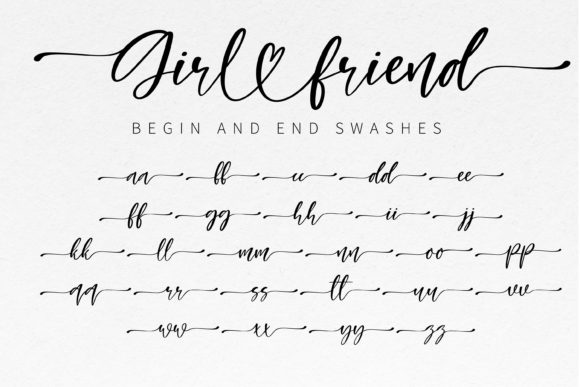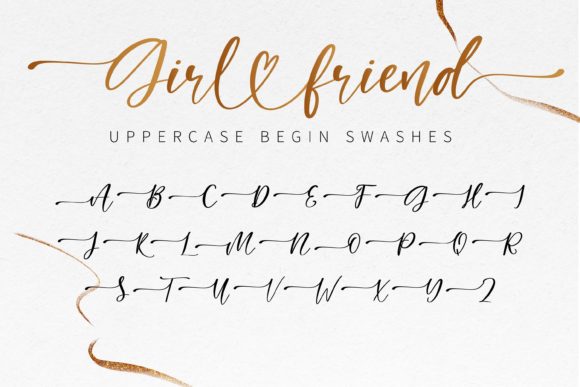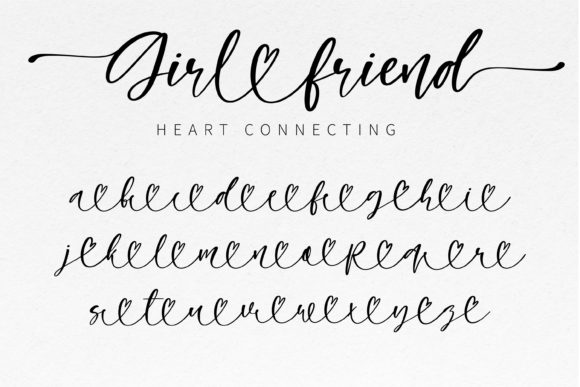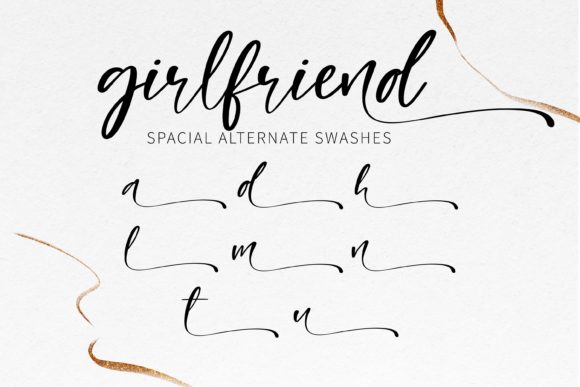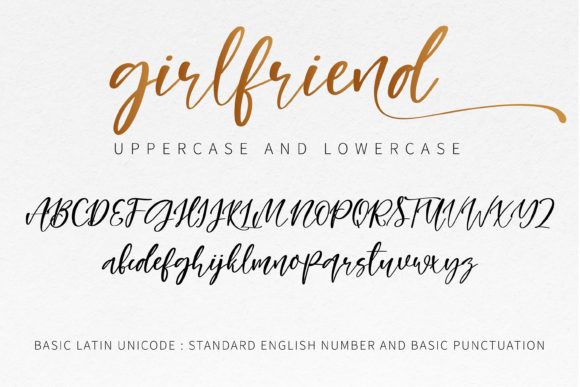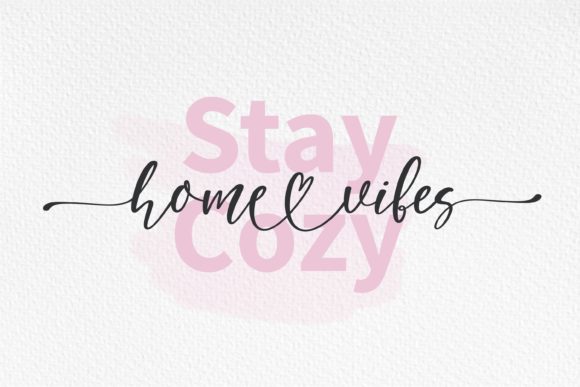
Introducing Girl Friend Font: A Delicate and Elegant Handwritten Font
Are you a designer or crafter looking for a font that exudes elegance and sophistication? Look no further than the Girl Friend Font, a beautiful handwritten font that is sure to elevate your designs to the next level. In this article, we’ll take a closer look at the features and benefits of this stunning font, and explore how it can be used to create stunning visual content.
A Delicate and Elegant Font
Girl Friend Font is a delicate, elegant, and flowing handwritten font that is perfect for designs that require a touch of sophistication. The font features beautiful and well-balanced characters that are carefully crafted to create a sense of harmony and balance. Whether you’re designing a logo, a wedding invitation, or a social media graphic, this font is sure to impress.
One of the standout features of Girl Friend Font is that it is PUA (Private Use Area) encoded. This means that you can access all glyphs and swashes with ease, giving you complete creative control over your designs. With PUA encoding, you can easily access alternative characters, ligatures, and swashes to add a personal touch to your designs.
Versatile and Adaptable
Girl Friend Font is a versatile font that can be used in a wide range of designs. Its elegant and flowing script makes it perfect for designs that require a touch of sophistication, such as:
- Digital and print advertising
Girl Friend Font offers a range of benefits for designers and crafters, including:
- Elegant and sophisticated designs: With Girl Friend Font, you can create designs that exude elegance and sophistication.
- Versatile: The font can be used in a wide range of designs, from wedding invitations to social media graphics.
- High-quality: The font is carefully crafted to ensure that it is of the highest quality.
Tips for Using Girl Friend Font
Here are some tips for using Girl Friend Font in your designs:
- Pair it with bold fonts: Pair Girl Friend Font with bold fonts to create a striking contrast.
- Use it for headings: Use Girl Friend Font for headings and titles to add a touch of elegance.
- Experiment with swashes: Experiment with swashes and glyphs to add a personal touch to your designs.
- Keep it simple: Keep your designs simple and clean to let the font shine.
In conclusion, Girl Friend Font is a beautiful and elegant handwritten font that is perfect for designers and crafters looking to add a touch of sophistication to their designs. With its PUA encoding and versatile design, it’s easy to use and adaptable to a wide range of designs. Whether you’re designing a wedding invitation or a social media graphic, Girl Friend Font is sure to impress.